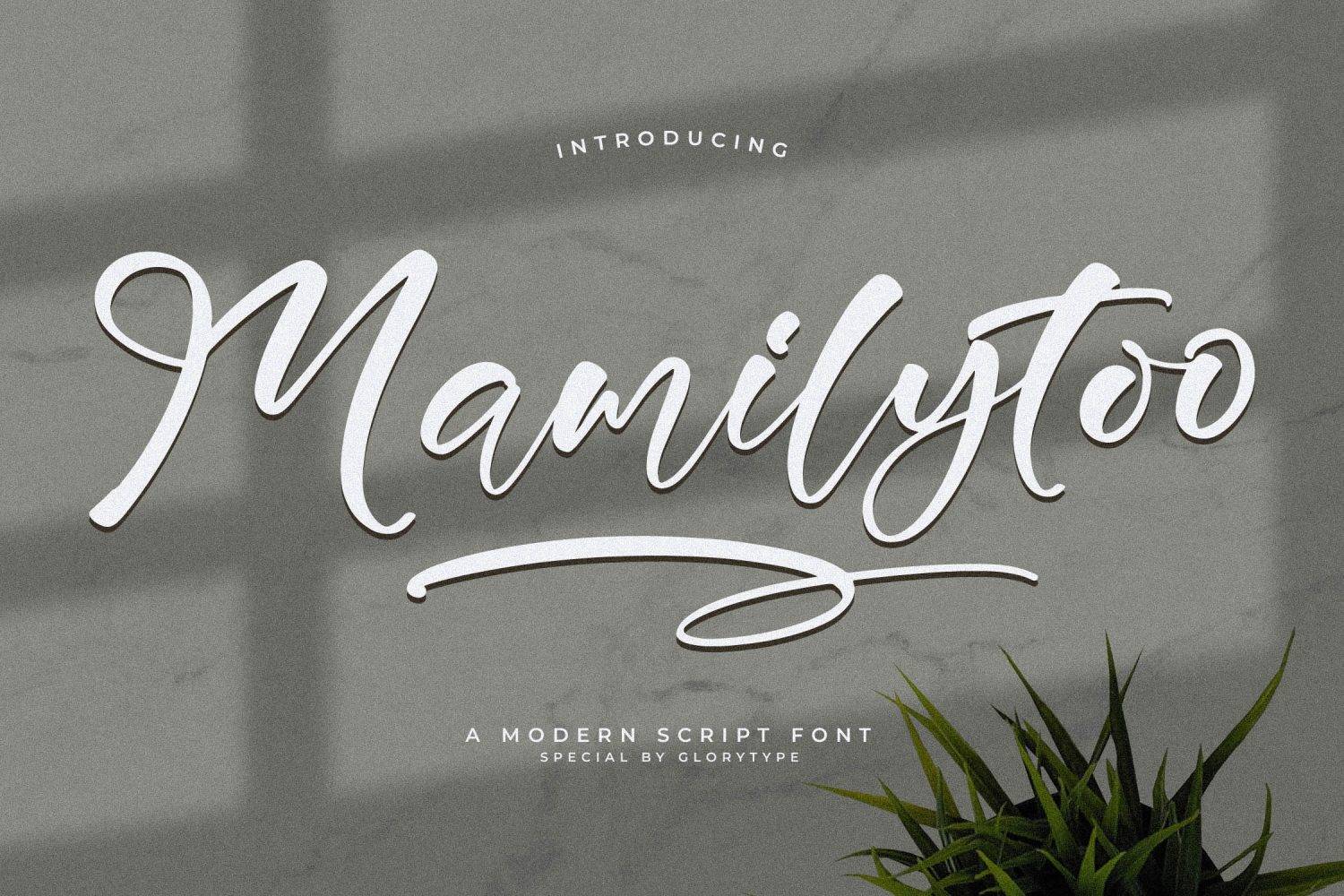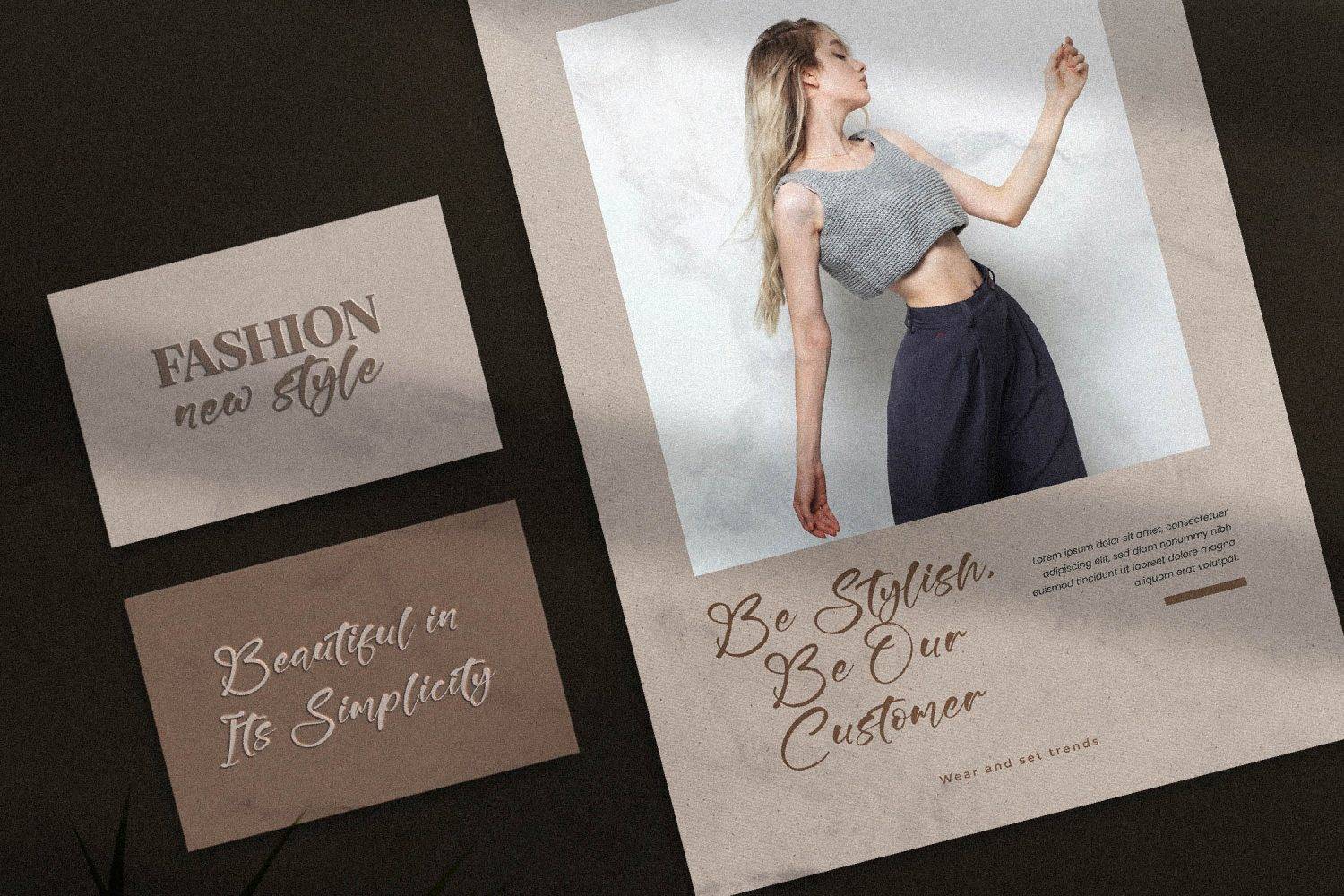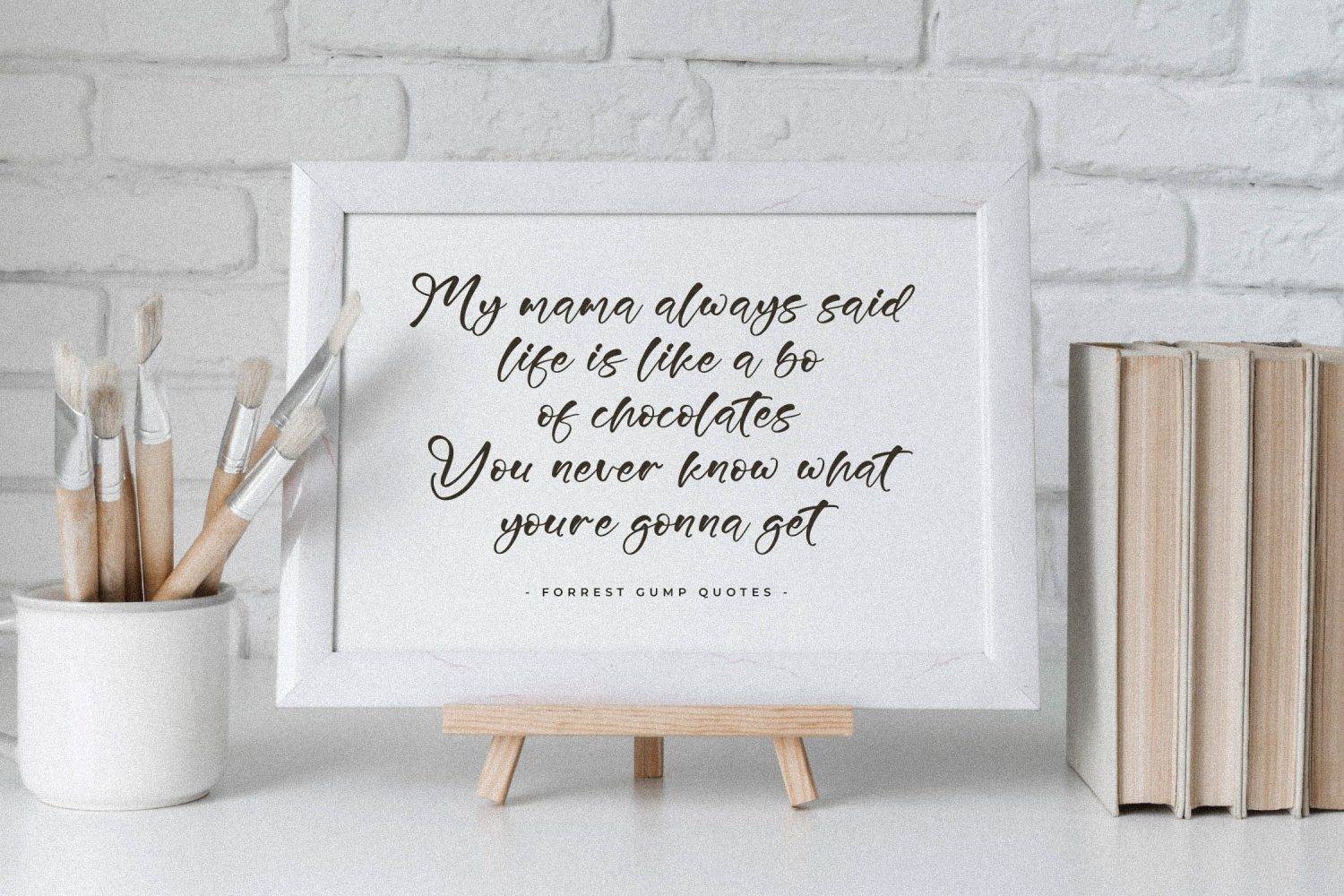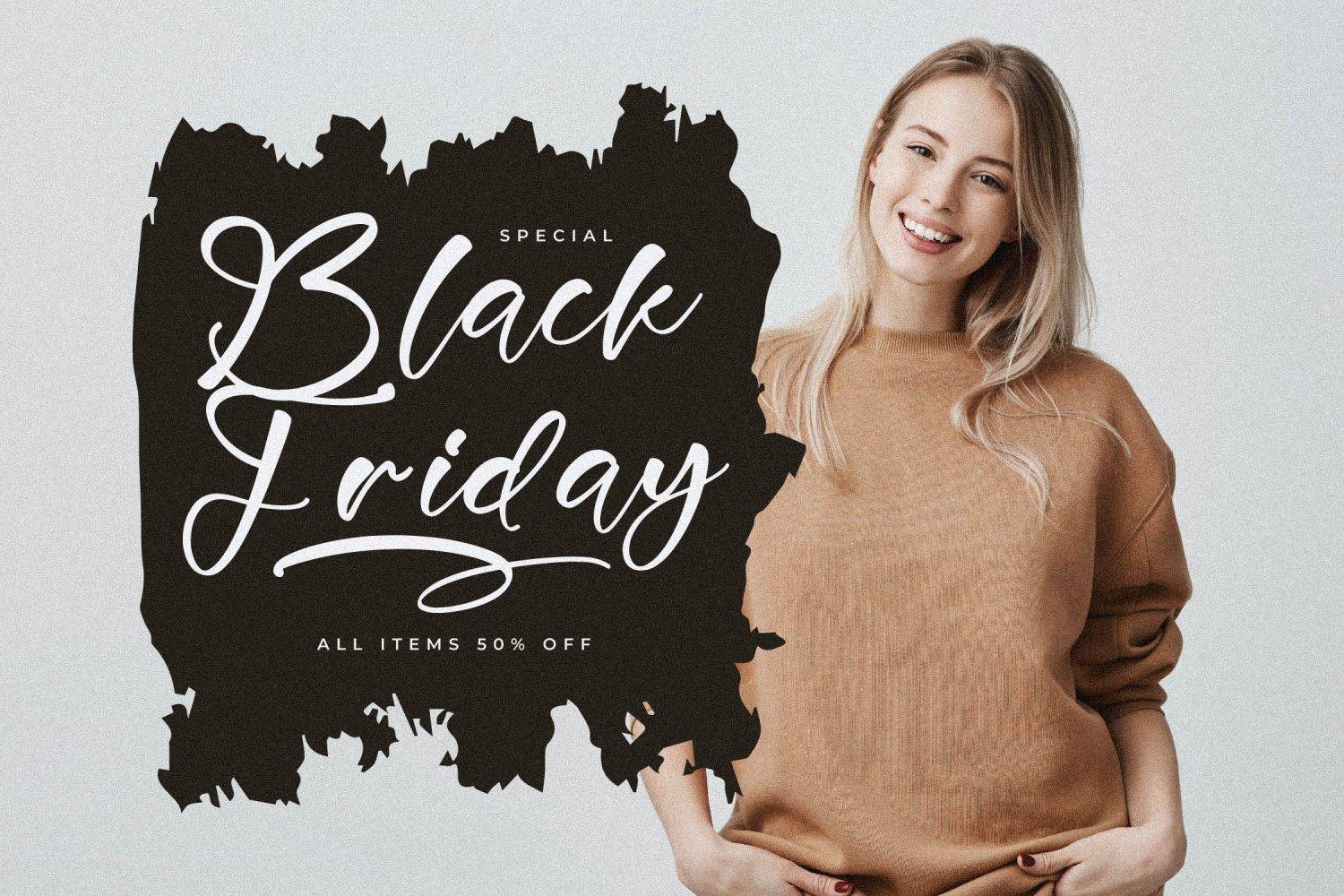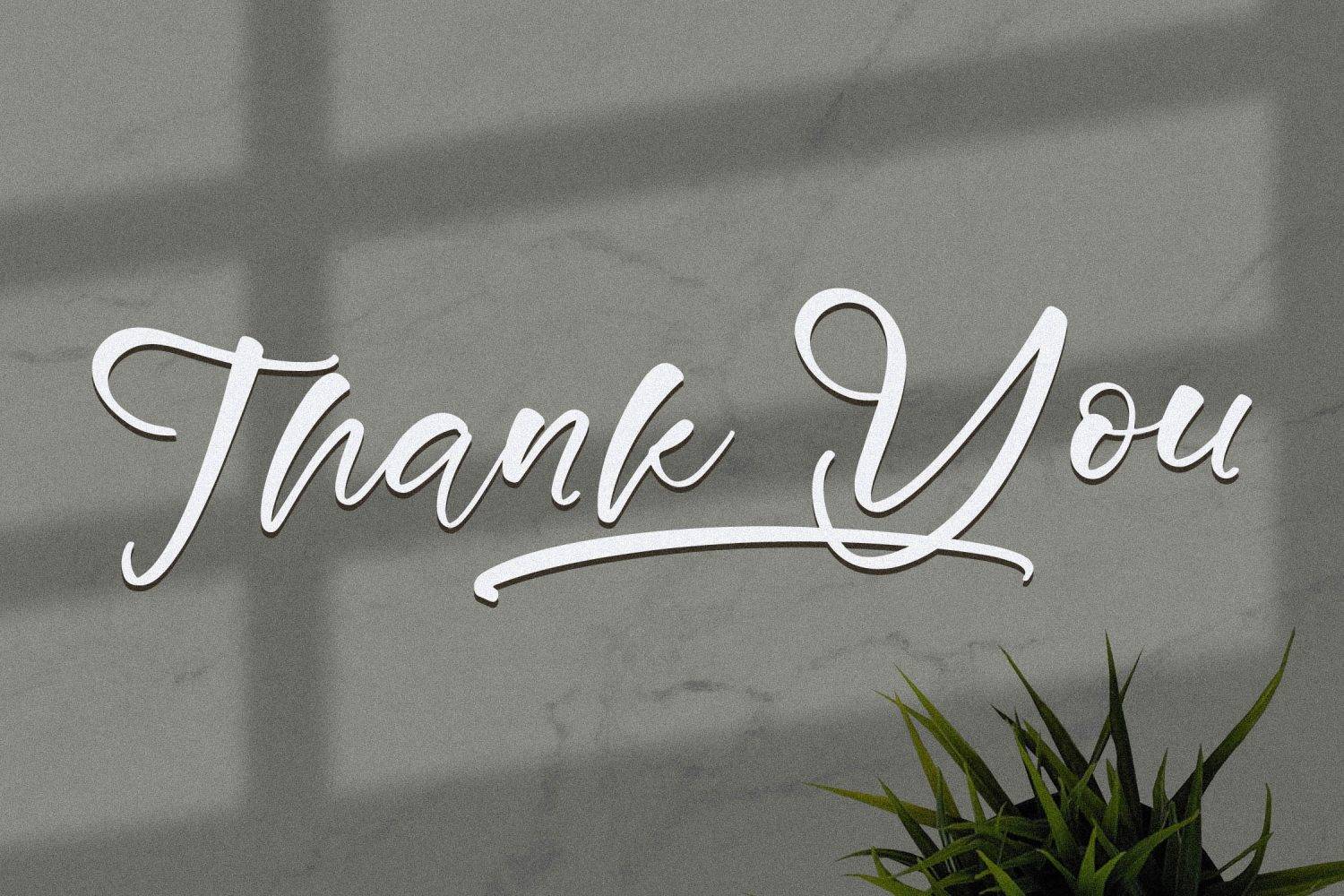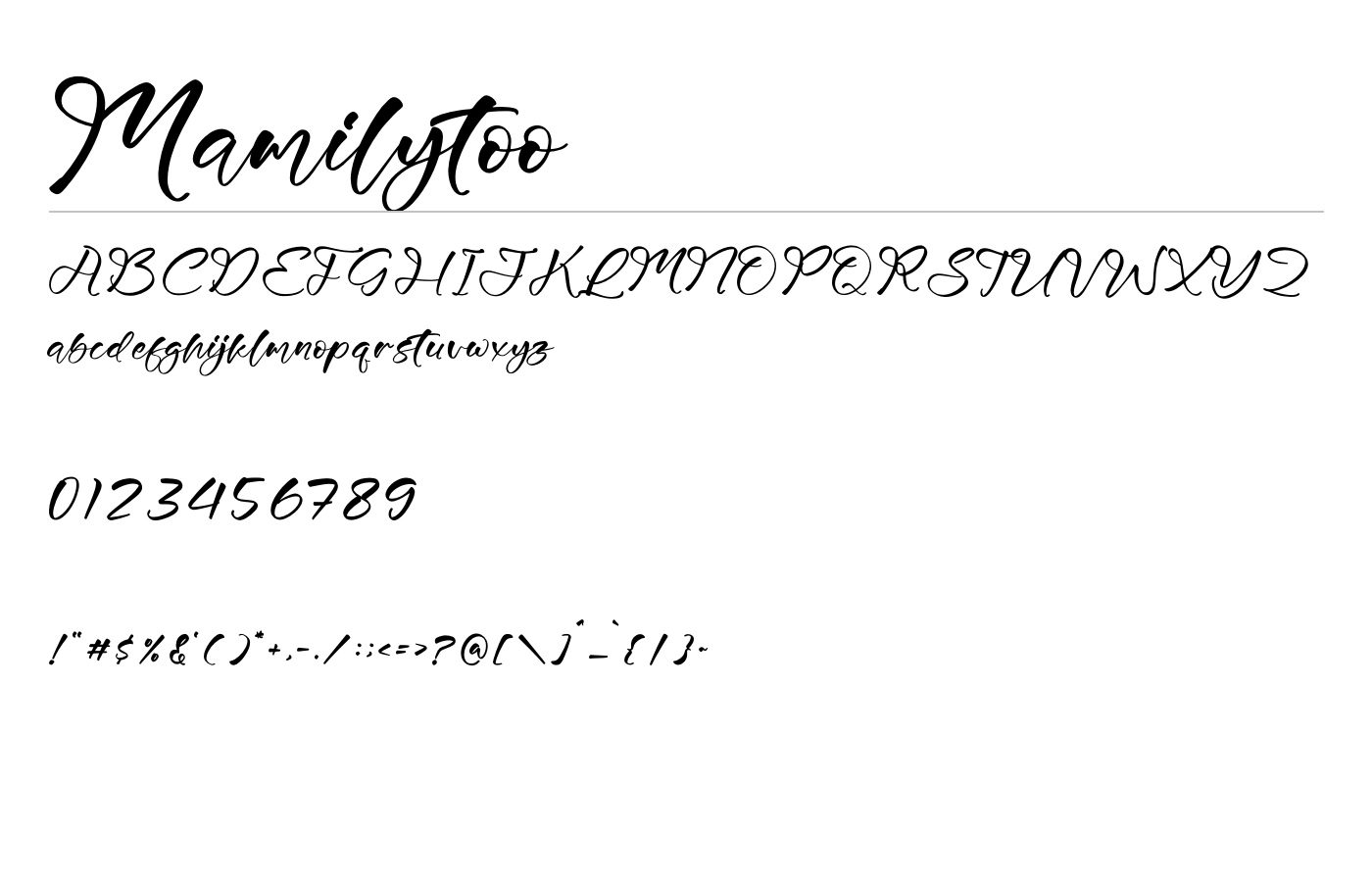
Mamilytoo Font is a stylish, handwritten script featuring elegant, flowing lines and a natural, personal touch. Its delicate curves and varying stroke thicknesses make it perfect for creating a warm and inviting feel, ideal for invitations, branding, and creative projects that want to convey charm and sophistication. This font works best in headlines, logos, and decorative text where its graceful style can truly shine.
Mamilytoo Font
About Mamilytoo Font
| Font family | Mamilytoo Font |